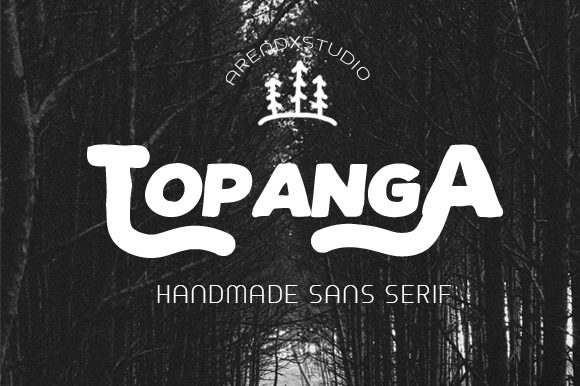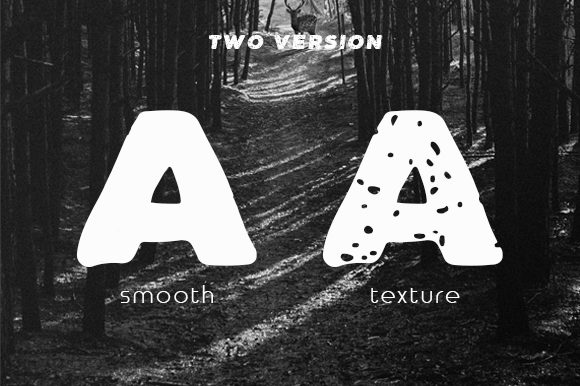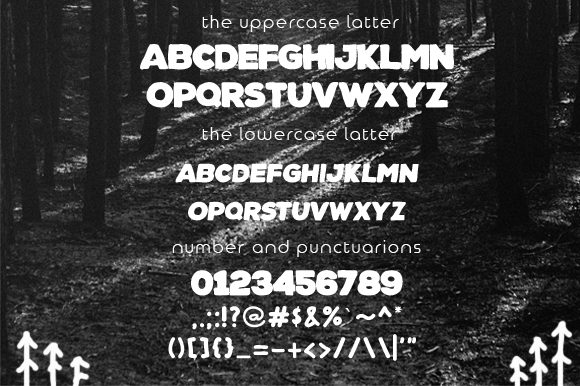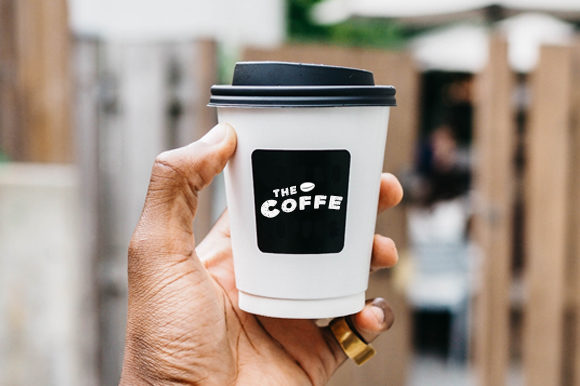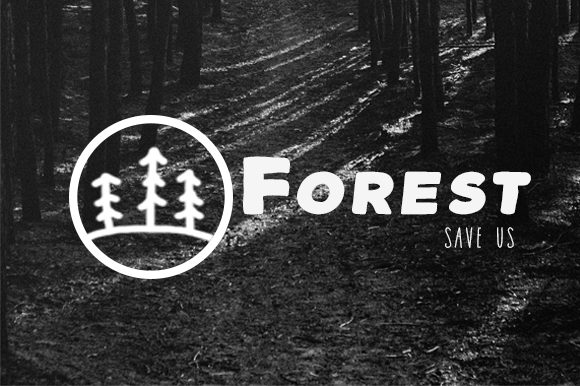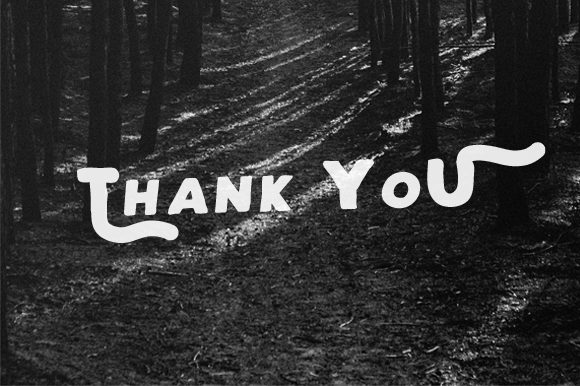
Topanga Font
About Topanga Font
Topanga is a unique and fun handwritten font with a bold feel. Classic, yet contemporary, it will turn any design project into a stand out!